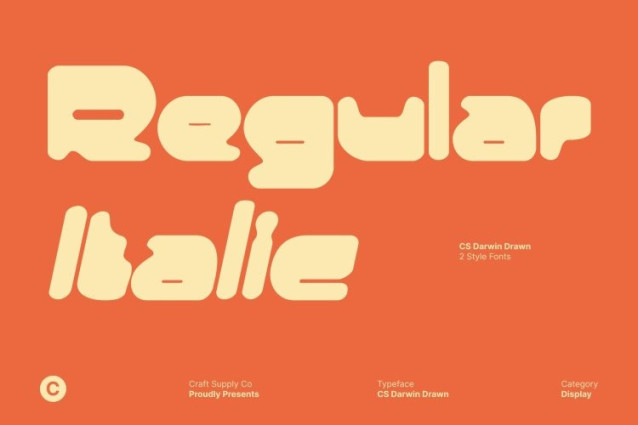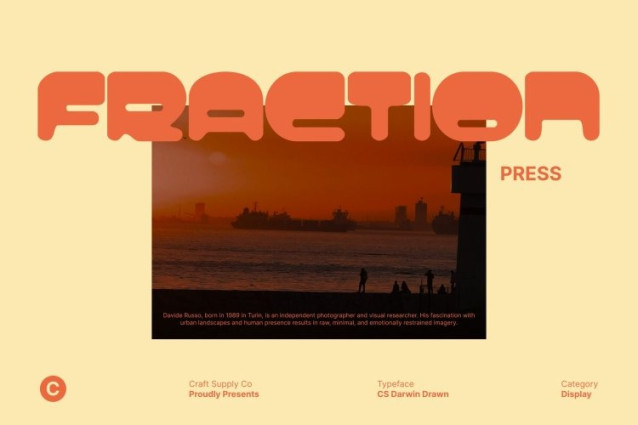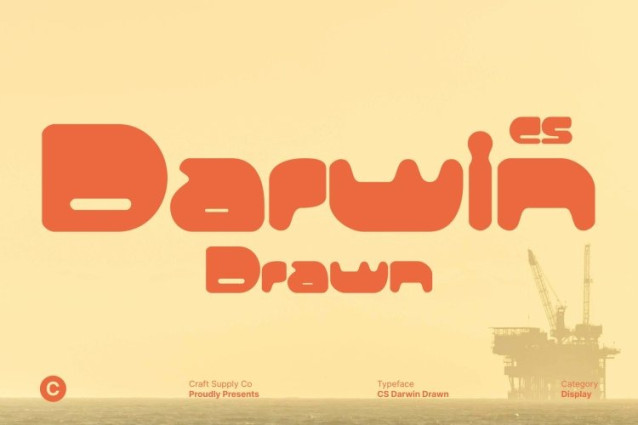
CS Darwin Drawn Font
CS Darwin Drawn Font This is a retro-futuristic display font inspired by the bold visual culture of the early 2000s. Rooted in Y2K aesthetics, this typeface blends clean geometry with smooth, futuristic curves, capturing the spirit of an era defined by digital optimism and experimental design. Its bold construction gives it strong presence, while the drawn texture adds a human, expressive edge.
Sleek, Funky, and Expressive Letterforms
The letterforms of this font feature glossy contours and fluid shapes that echo classic techno-pop visuals, early web graphics, and futuristic branding from the millennium era. Subtle funky proportions bring playfulness and attitude, making the font feel youthful, energetic, and full of personality. The hand-drawn character softens the futuristic structure, creating a balance between digital precision and creative expression.
Perfect for Y2K Revival and Digital Culture
Designed for bold display use, shines in music posters, fashion branding, album covers, experimental visuals, and digital pop culture projects. Its retro-futuristic voice aligns perfectly with the modern resurgence of Y2K-inspired trends, making it an excellent choice for designs that aim to feel nostalgic.
A Statement Font for Creative Trendsetters
More than just a throwback, reimagines Y2K style with a contemporary mindset. It’s ideal for designers who want to stand out, break conventions, and inject their work with cultural flair. With its unique blend of nostalgia, futuristic energy, and hand-drawn charm.